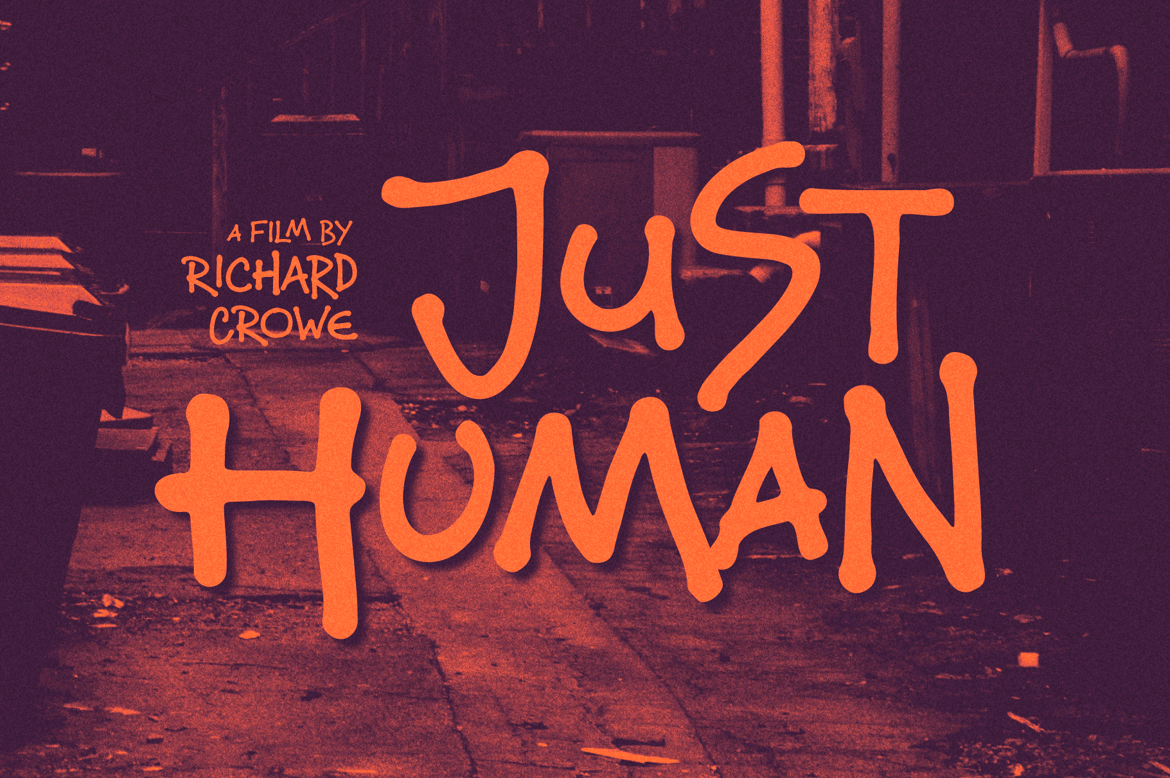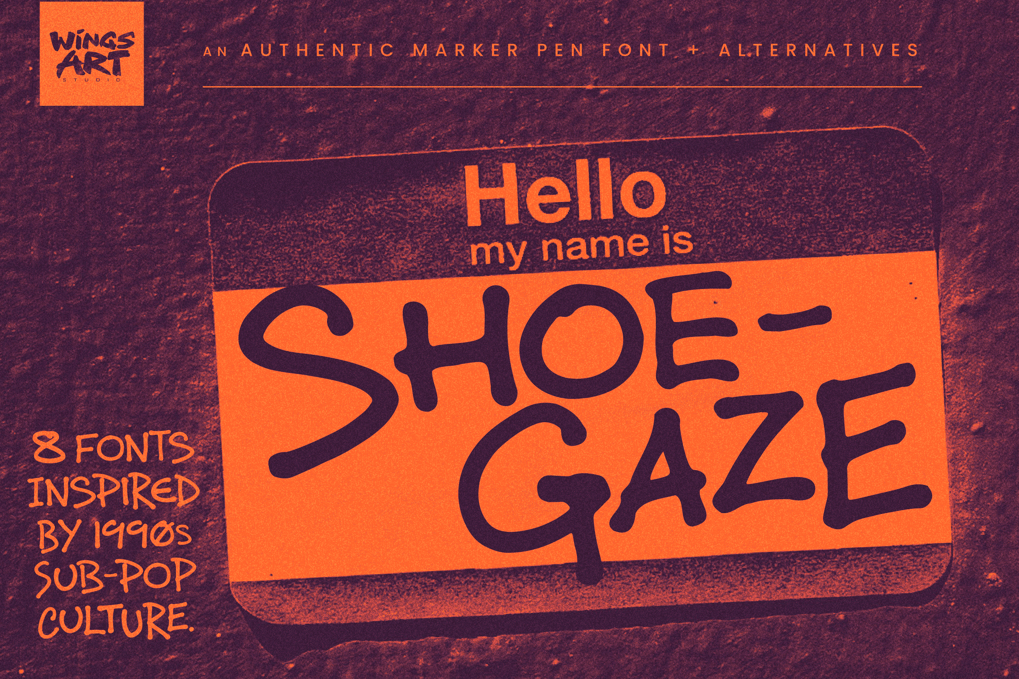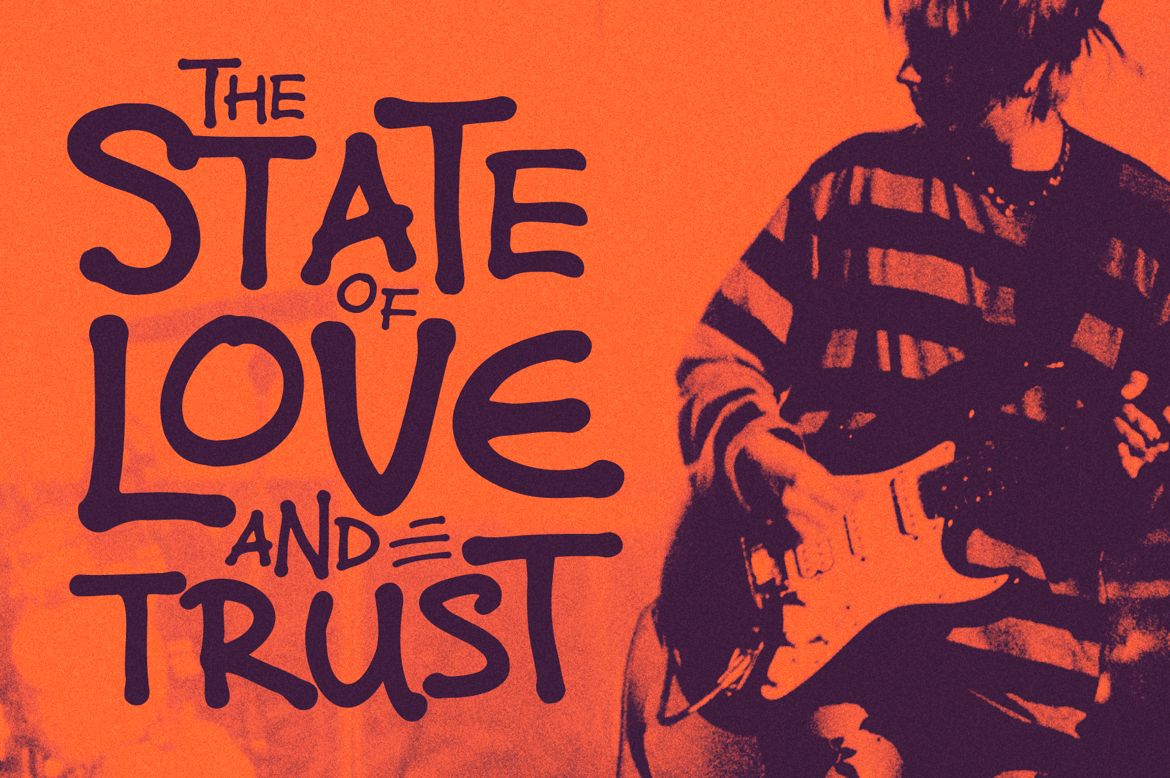
Shoegaze: A 90s Inspired Alt-Rock Marker Pen Font
A sub-genre of the alternative rock scene, Shoegaze shares the characteristics of Grunge, Punk and Psychedelia, adding its own brand of dreamy distortion, soft vocals and melancholy themes. It provided the soundtrack to 90s independent cinema, linking sound and vision to a hand-made aesthetic employed by filmmakers across their title sequences, posters and trailers. It’s a visual style that speaks of a low-fi, adolescent attitude where type is character in your overall design.